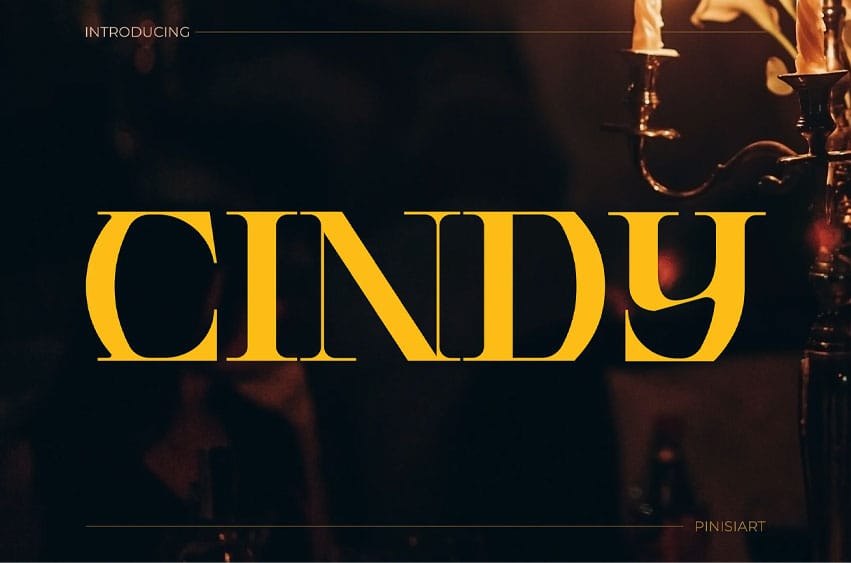
Cindy Font is a high-contrast display typeface that brings bold elegance and vintage charm into modern design. With its stylish uppercase construction, sharp geometric edges, and theatrical letter proportions, it delivers a nostalgic yet luxurious aesthetic. Perfect for projects where drama meets sophistication—CINDY thrives in editorial layouts, upscale branding, and glamorous event stationery. Its confident presence and theatrical vibe make it ideal for wedding invites, magazine covers, or anything that craves timeless sophistication and retro class.
From boutique branding to cinematic posters, CINDY enhances visual storytelling with a voice that’s both regal and striking. The font is especially powerful in wedding design, jewelry packaging, hotel branding, and beauty product labels—instantly making headlines feel royal, and subtexts feel poetic. Its commanding structure builds trust, while the subtle curves and spacing draw in the viewer’s eye with a natural sense of flow and balance.
Elegant Meets Bold
- High contrast strokes for high market appeal
- Elongated, theatrical letter shapes for vintage drama
Stand Out with Purpose
- Ideal for logos, wedding invites, editorial headers
- Balances nostalgic elegance with modern design needs
Effortless Versatility
- Smooth readability in uppercase and lowercase
- Captivating enough for print, web, and packaging